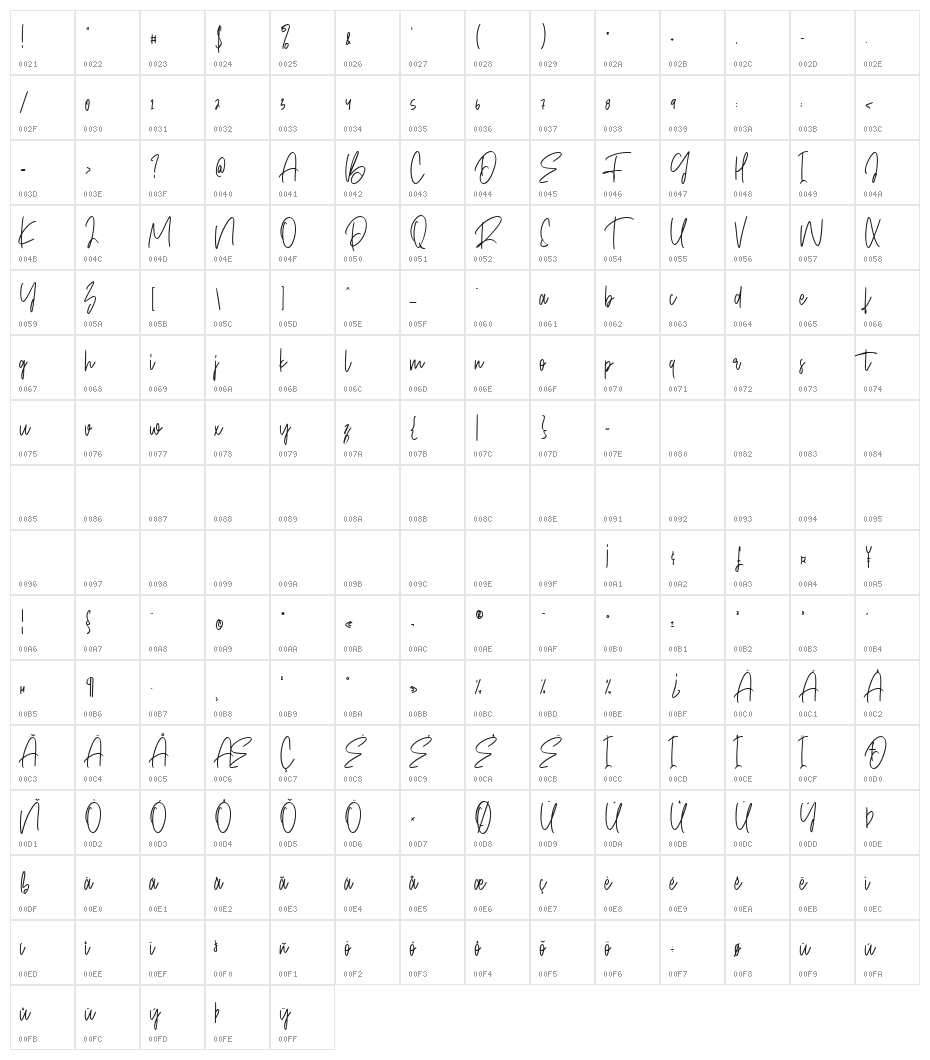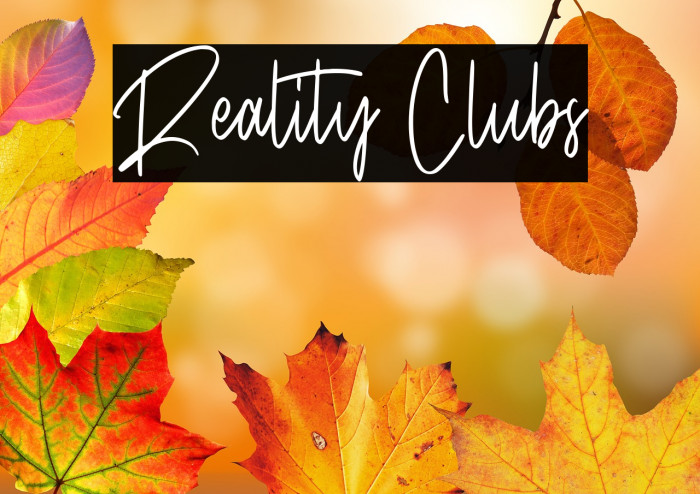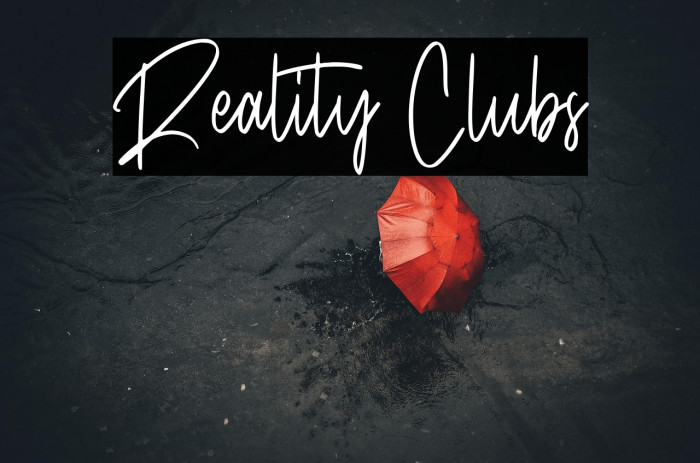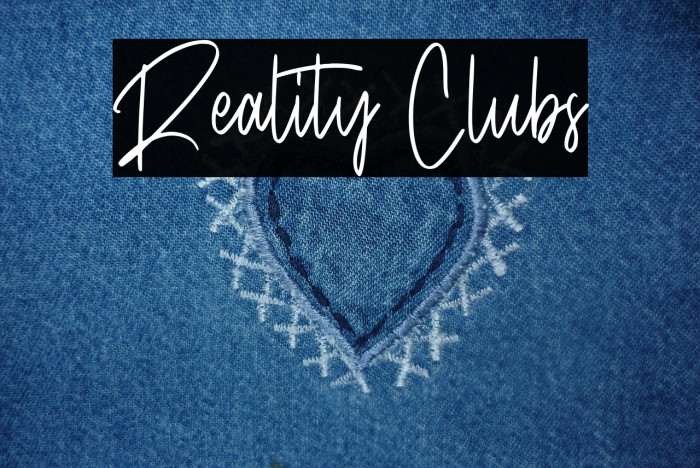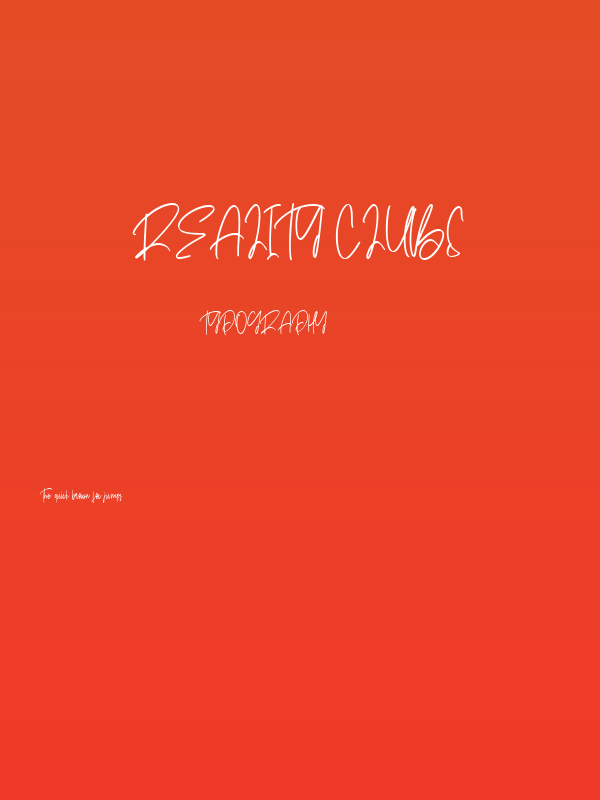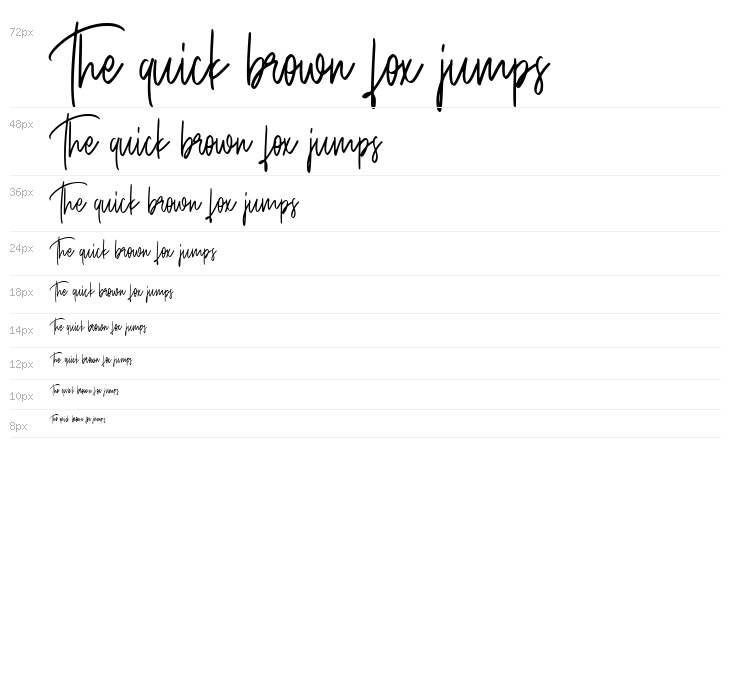
Reality Clubs Font
Reality Clubs Description
A playful and expressive handwritten font with a casual and flowing style, featuring irregular strokes and a personal touch.
| Use Case | Logos, Headlines, Personal projects |
| Proposed Projects | Greeting cards, invitations, personal branding. |